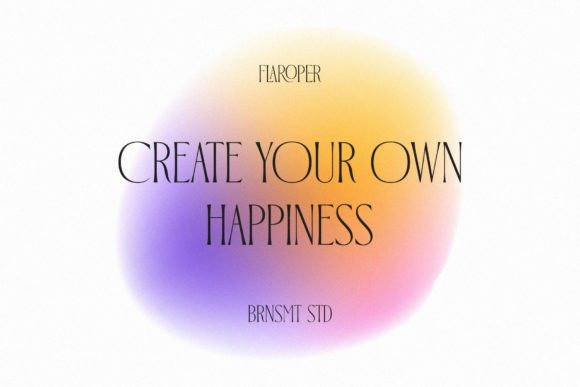
Flaroper Font
Flaroper Serif Font is an elegant and modern serif font. This minimalist and clean vibe can easily apply to your favorite designs such as book covers, magazines, social media posts, invitations, and so much more!